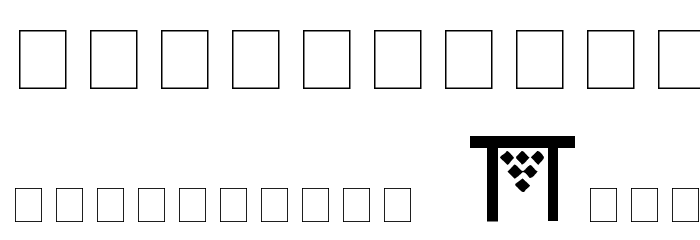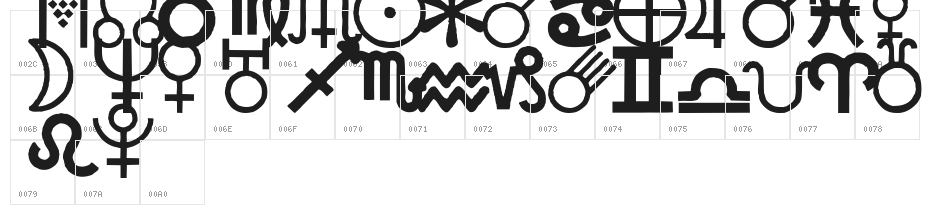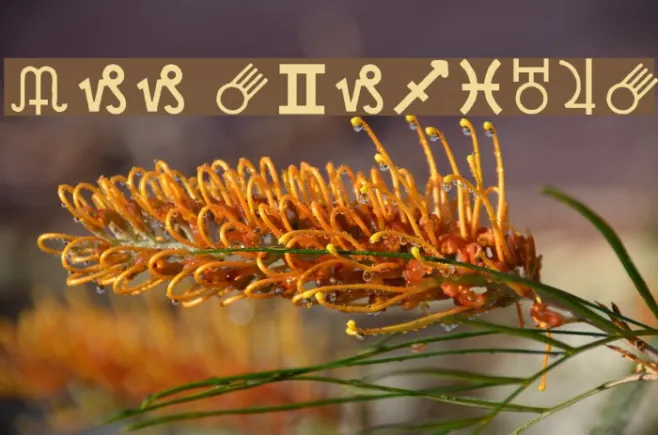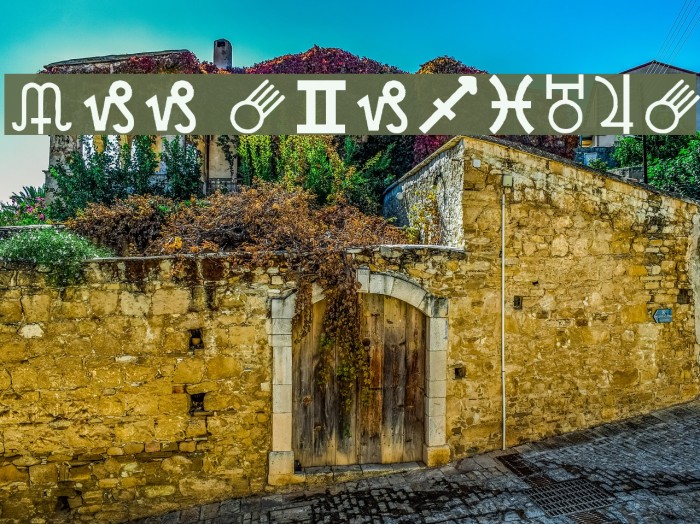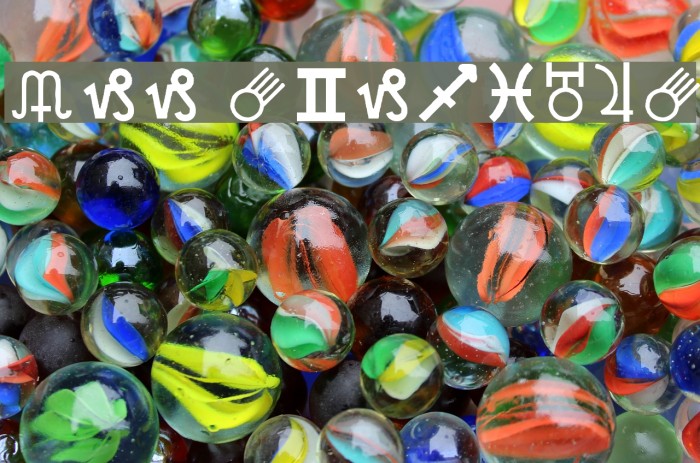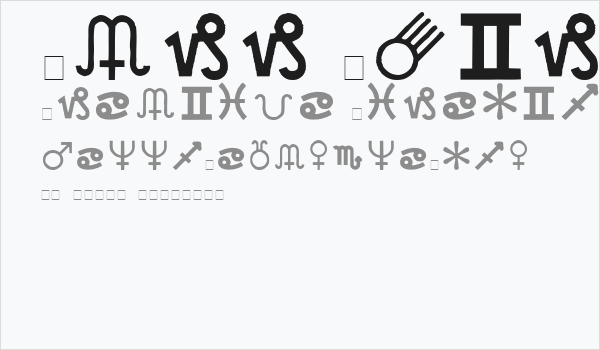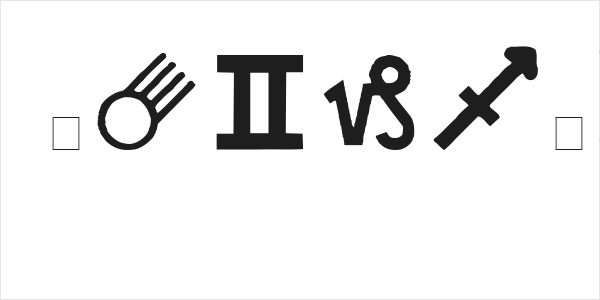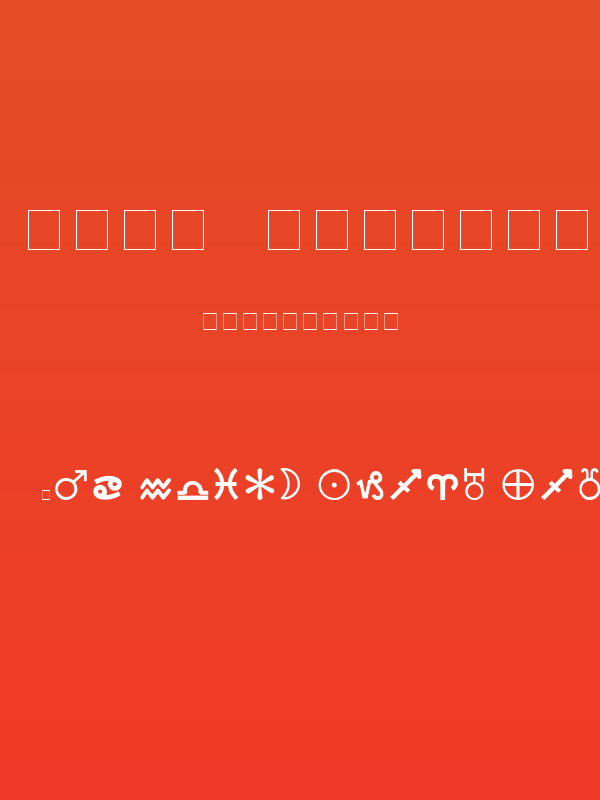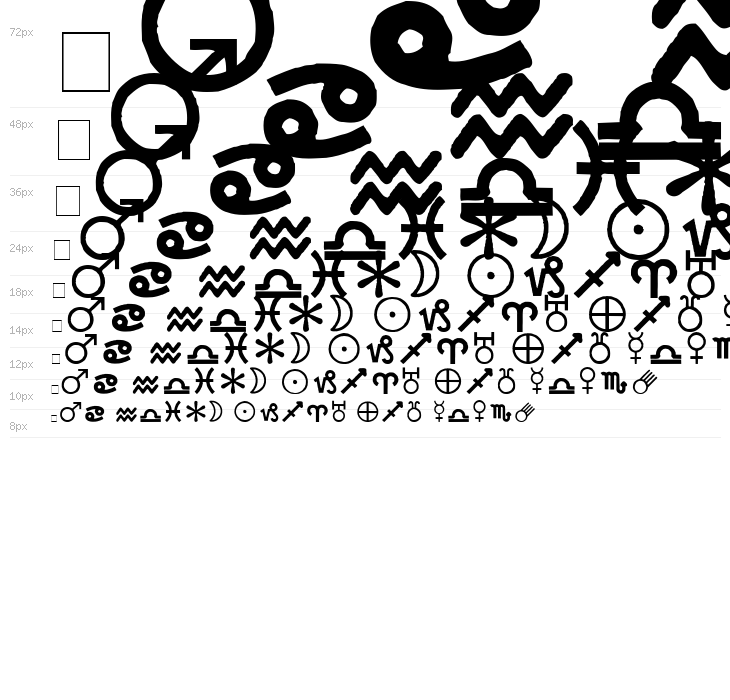
Carr AstroDings Font
Carr AstroDings Description
This font is a collection of astrological and astronomical symbols, featuring a variety of glyphs that represent zodiac signs, planetary symbols, and other celestial motifs. The symbols are bold and clear, designed to be easily recognizable and distinct. Each character is crafted with precision, maintaining a consistent style throughout the set. The font is primarily decorative, focusing on the representation of these mystical and scientific symbols rather than traditional alphanumeric characters.
| Use Case | Logos, Themed graphics, Educational materials |
| Proposed Projects | Ideal for projects related to astrology, astronomy, or mysticism, such as horoscopes, educational materials, or themed designs. |